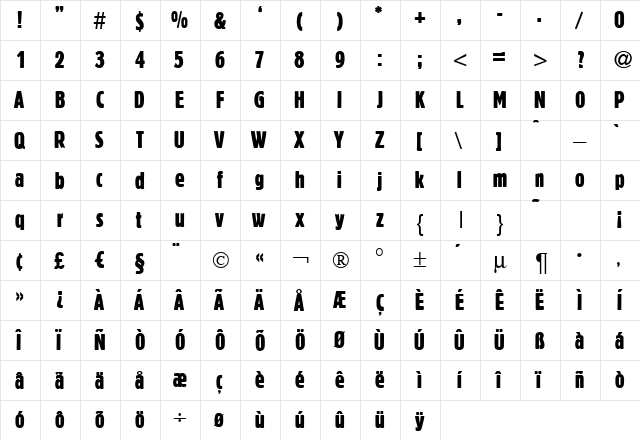
BlofeldXCd Regular
Design Context for BlofeldXCd Typeface
BlofeldXCd offers clean, dependable letterforms without strong stylistic allegiance, making it a practical choice for designers who need flexibility.